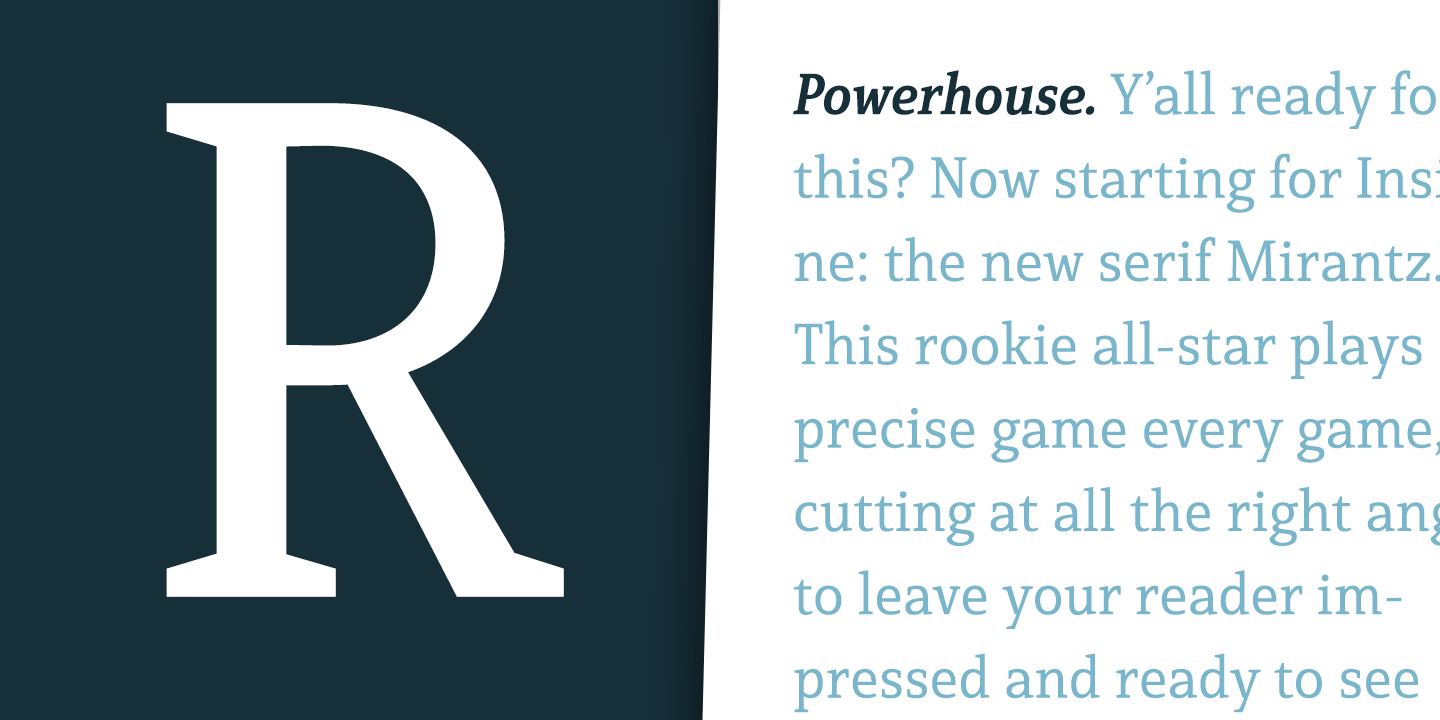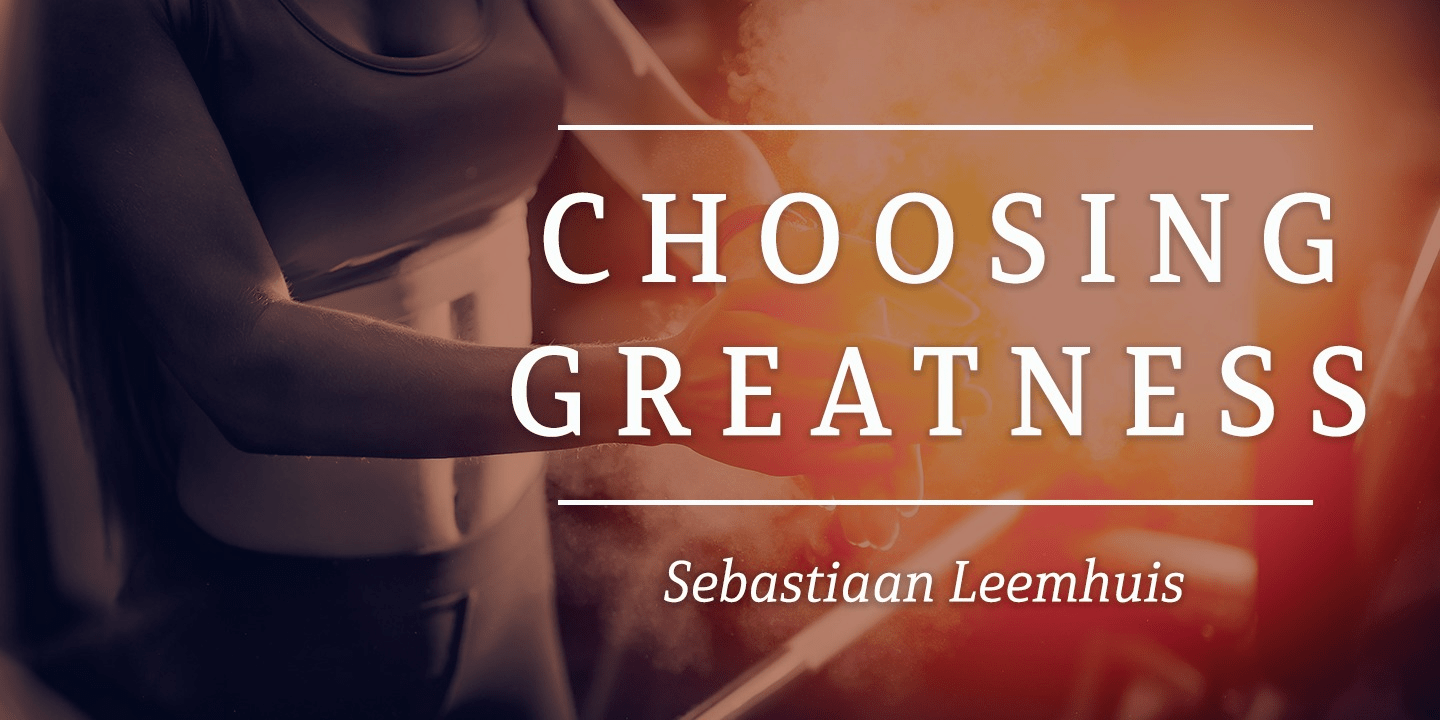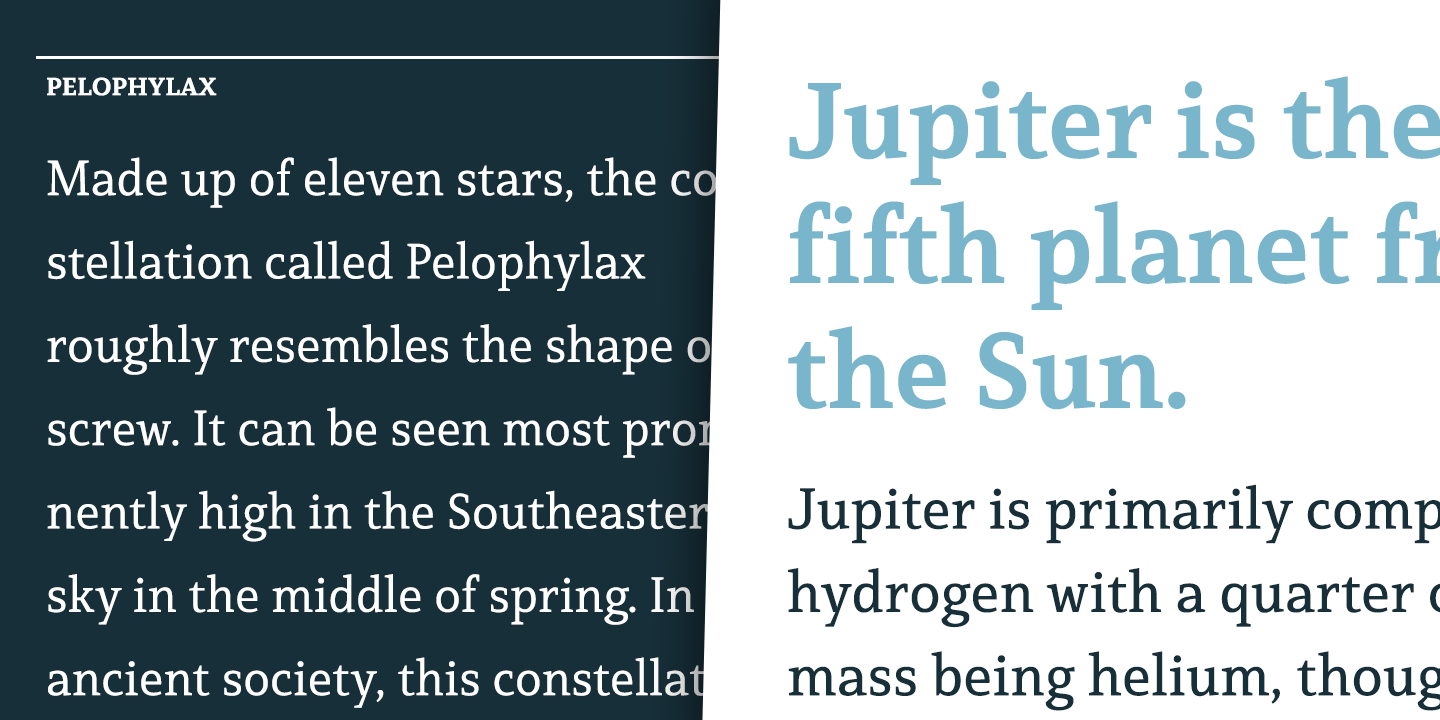
About Mirantz Complete
Y?all ready for this? Now starting for Insigne: the new serif Mirantz. This rookie all-star plays a precise game every game, cutting at all the right angles to leave your reader impressed and ready to see more. You can always count on Mirantz to lead…